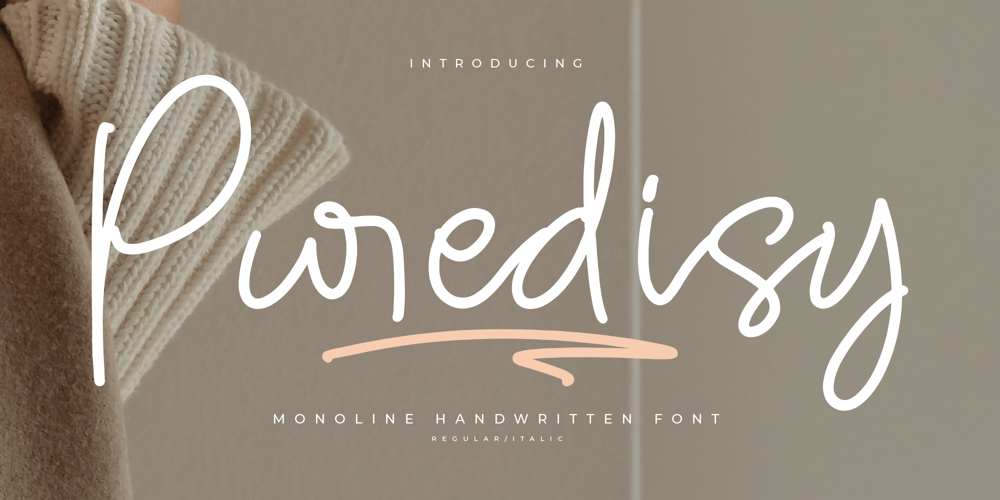
Puredisy Font Family was designed by Heru Utama Putra and published by Letterena Studios. Puredisy contains 2 styles and family package options. Puredisy is a captivating blend of style and freshness, boasting a handwritten script with modern flair. Its flowing strokes and elegant curves exude sophistication, while its unique charm adds a touch of personality to any design. Puredisy is perfect for branding, packaging, and invitations, offering versatility and allure.